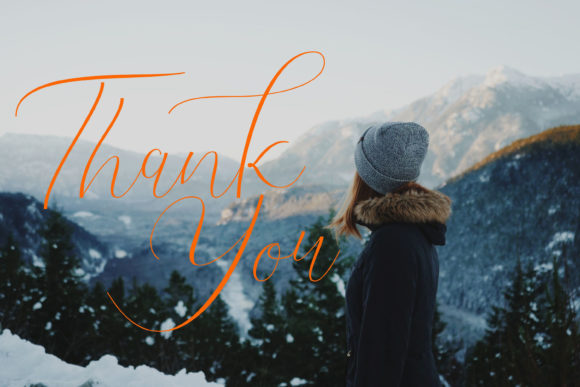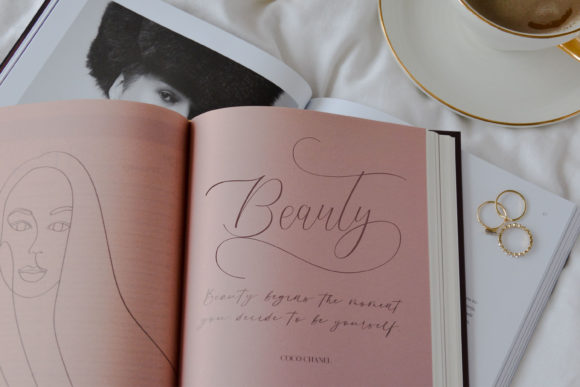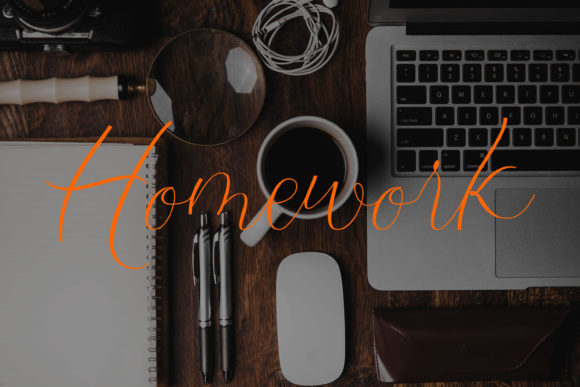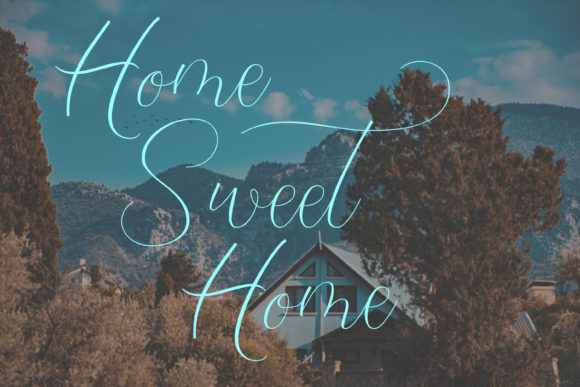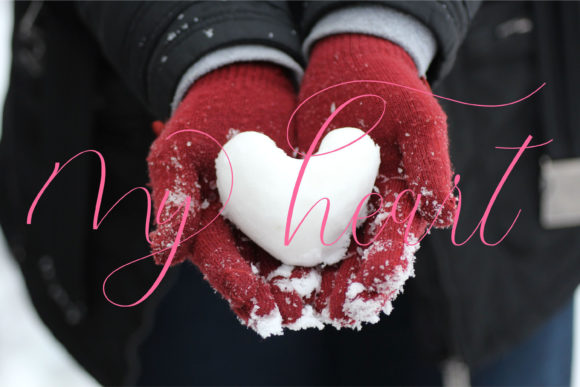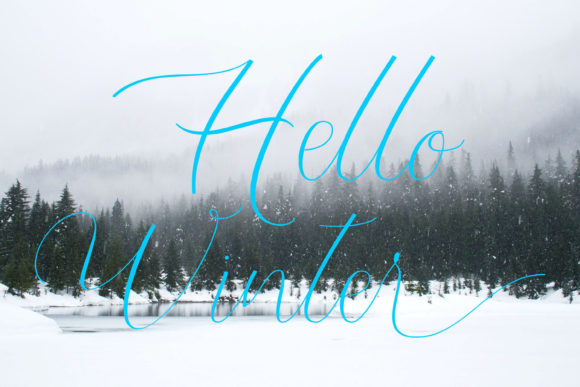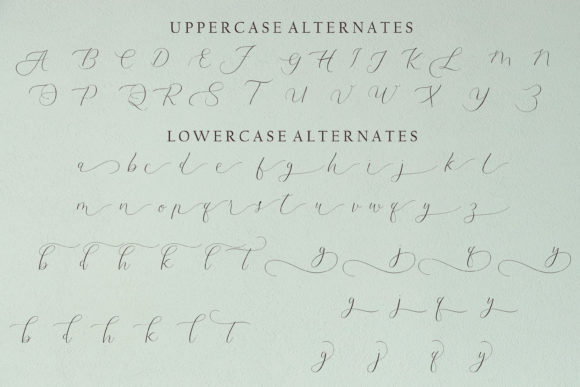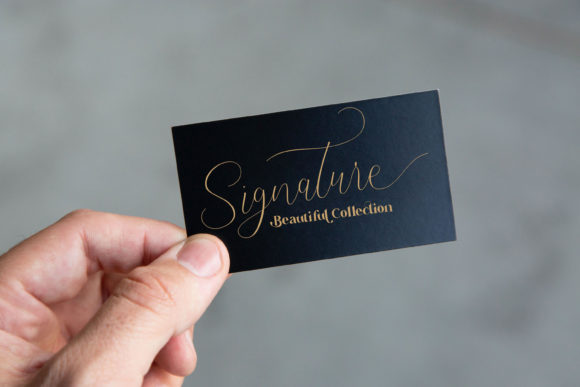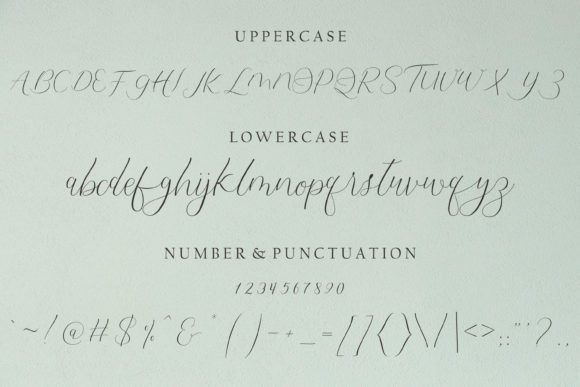
Snow White Font
Snow White is a gracefully designed script font that lends itself perfectly to a range of elegant applications. With its delicate and stylish appearance, Snow White is particularly well-suited for wedding invitations, brand logos, posters, banner designs, modern websites, and various other creative endeavors.
This font’s charm lies in its script style, which adds a touch of sophistication and refinement to any project. The flowing and interconnected characters of Snow White bring a sense of grace and beauty, making it an excellent choice for occasions like weddings, where an elegant and romantic aesthetic is desired.
The versatility of Snow White ensures its suitability for a wide array of design purposes. Whether you’re crafting a brand logo that demands a touch of elegance or creating visually appealing posters and banners, this font adapts seamlessly to different contexts, enhancing the overall aesthetic of your work.
Snow White’s clean and modern design also makes it a fitting choice for contemporary websites. Its readability and stylish appearance contribute to a polished and professional look, making it an asset for web designers aiming to create visually appealing and engaging online experiences.
In summary, Snow White stands out as a script font that combines elegance with versatility. Its suitability for wedding invitations, brand logos, posters, banners, and modern websites makes it a valuable tool for designers looking to add a touch of sophistication and charm to their creative projects.